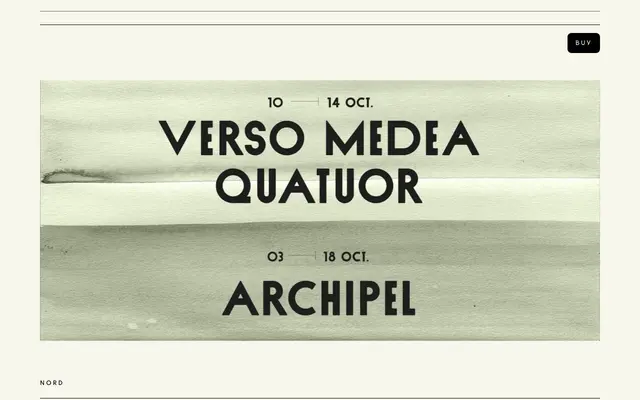
Nord
VJ Type · Jérémy Schneider · 2015
A bold display typeface with irregular letter widths and rounded angles, originally drawn for the 2015–2016 identity of the Théâtre des Bouffes du Nord in Paris.
Designed by Jérémy Schneider as part of a theatre identity commission, Nord pairs a confident weight with softened corners and deliberately varied letter widths that give it an unsystematic, expressive rhythm. It was conceived alongside a companion typeface, Sud, with both intended to coexist within the same graphic identity at different weights. Available in a single Regular weight with broad Latin Extended language support across OTF, WOFF and WOFF2 formats.
A bold, single-weight display typeface with irregular letter widths and rounded angles, designed expressly for a theatre identity rather than text use, placing it firmly in the display category.